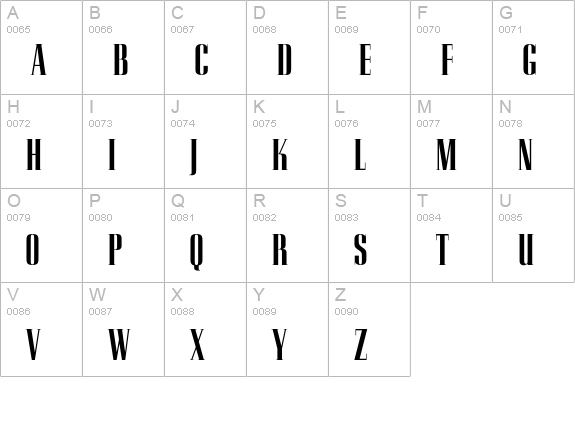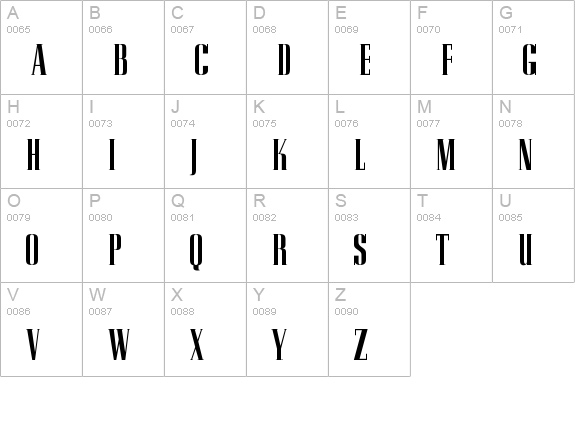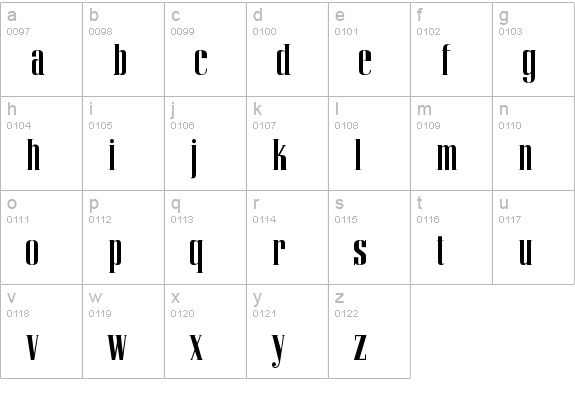
OPTICorvinus-Skyline Font Details
The OPTICorvinus-Skyline font is a stylish and modern typeface that exudes sophistication and elegance. Its sleek lines and unique design make it perfect for a wide range of design projects, from logos to branding to editorial layouts. This versatile font features a clean and streamlined appearance that is sure to catch the eye and make a statement. Best of all, the OPTICorvinus-Skyline font is available for free download at FontsMarket.com. Whether you're a designer looking to add a fresh new font to your collection or a business owner in need of a striking typeface for your branding materials, this font is sure to impress. Don't miss out on the opportunity to enhance your projects with the stunning OPTICorvinus-Skyline font - download it for free today!